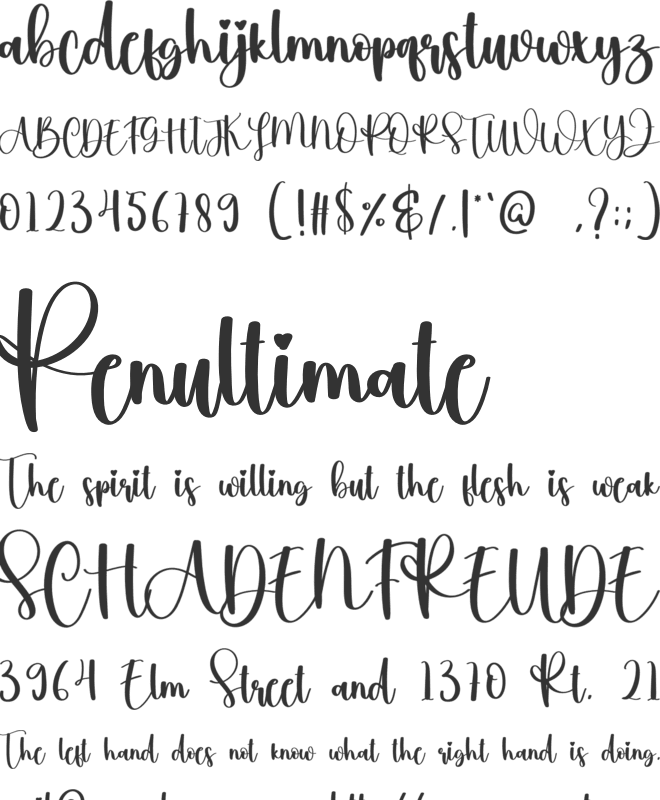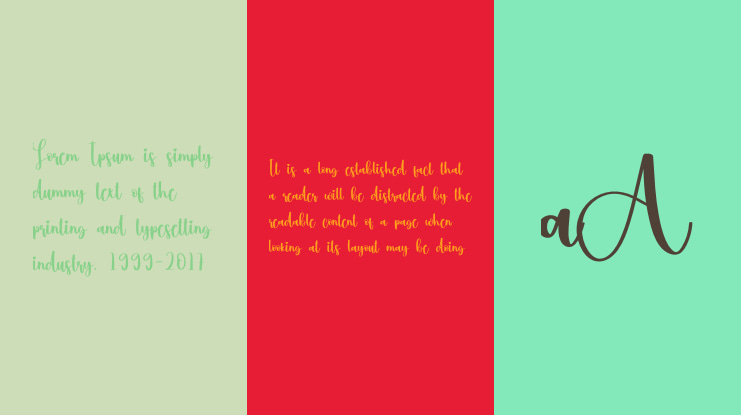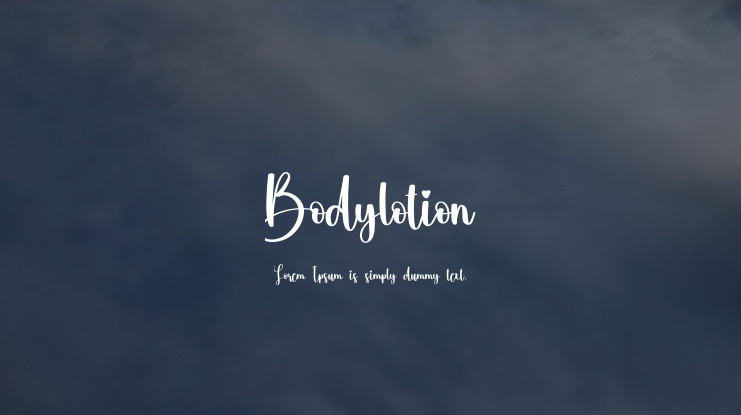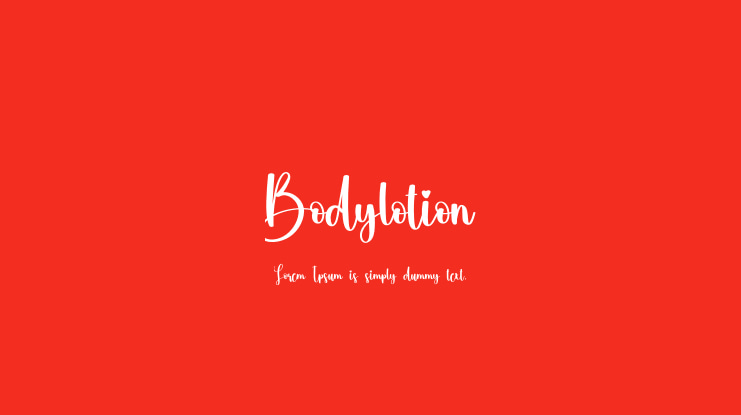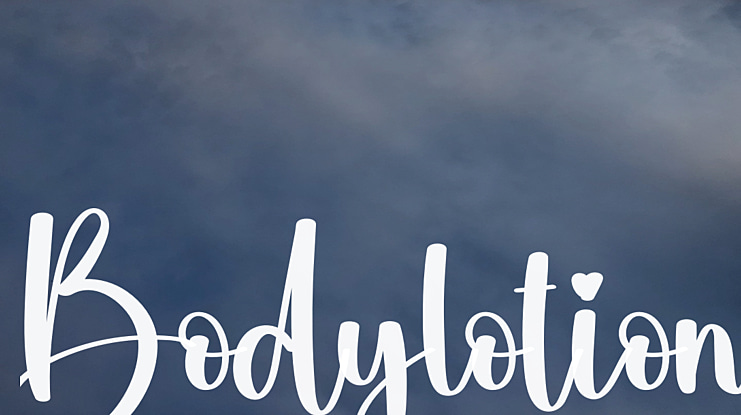
Bodylotion Font
This font is perfect for your creative ideas, both formal and informal. It has a modern style with a touch of creative ideas that is very suitable to be applied anywhere that requires creative ideas such as invitation cards, letterheads, website logos, social media, banners, advertisements, brochures, packaging products, leather products, and any product that requires writing.
the latest style letters are perfect for wall displays, wedding invitations, social media post logos, advertisements, product packaging, product designs, labels, photography, watermarks, invitations, stationery, and any project that requires taste handwriting.